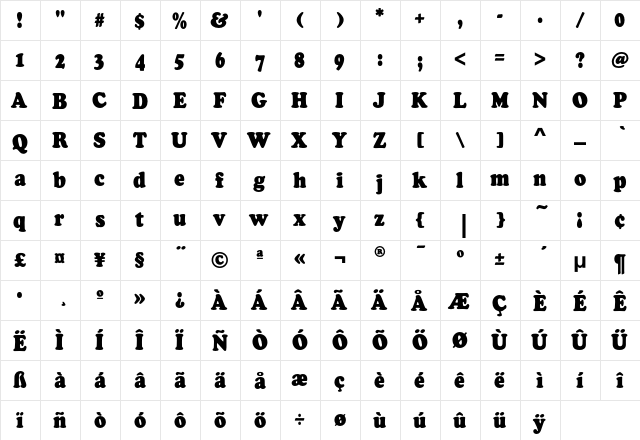
CooperBlackEF-BoldCondensed Regular
Design Context for CooperBlackEF-BoldCondensed Typeface
CooperBlackEF-BoldCondensed offers clean, dependable letterforms without strong stylistic allegiance, making it a practical choice for designers who need flexibility. Its bold stroke weight gives it real presence on the page. Its narrow stance lets it pack a punch even in space-constrained designs.